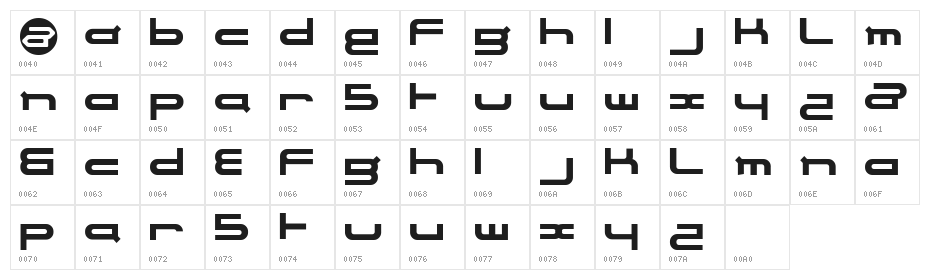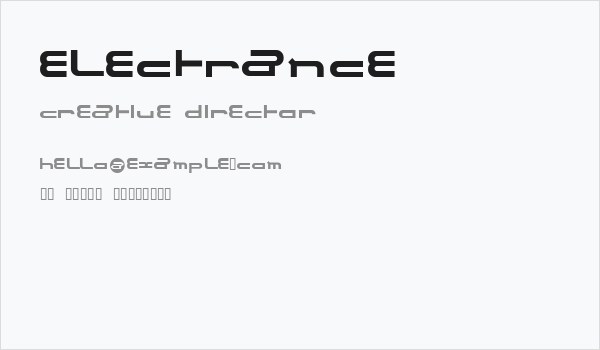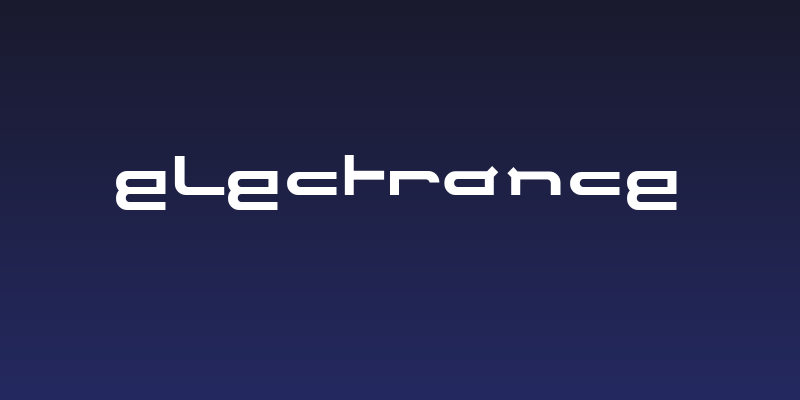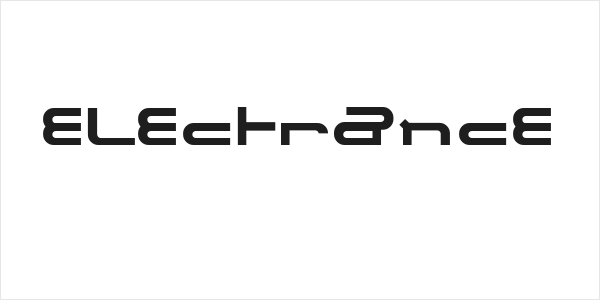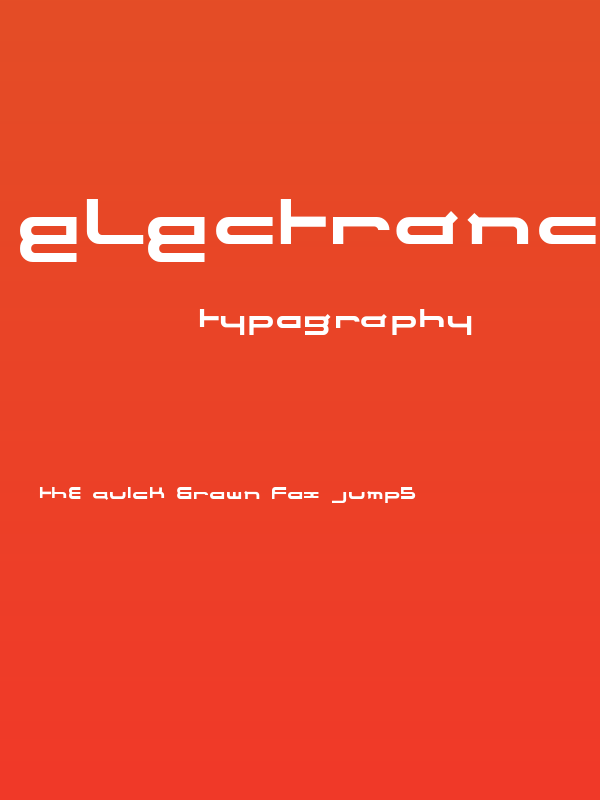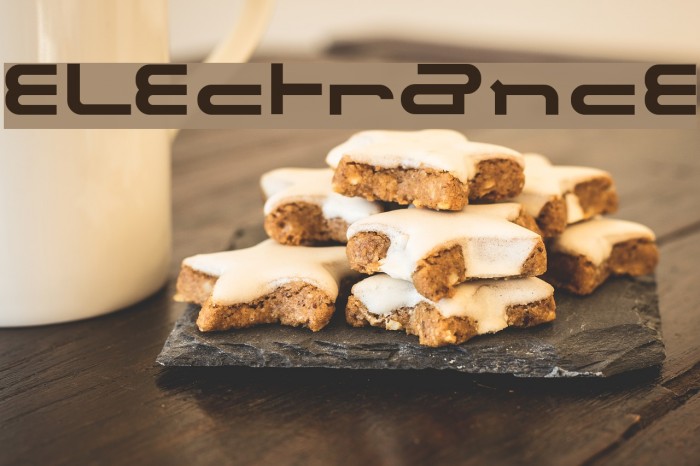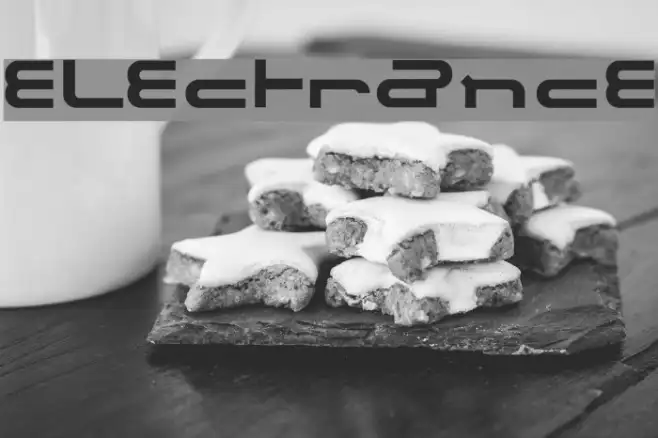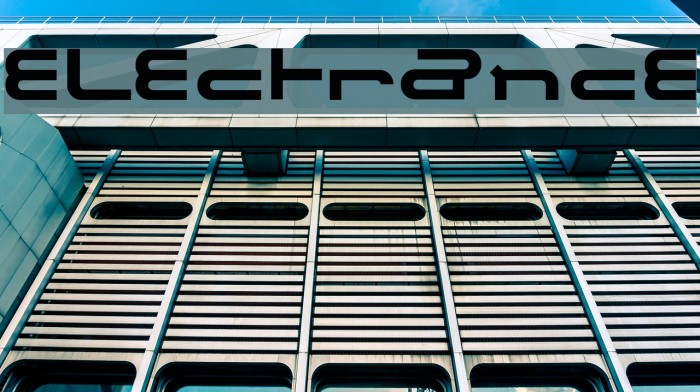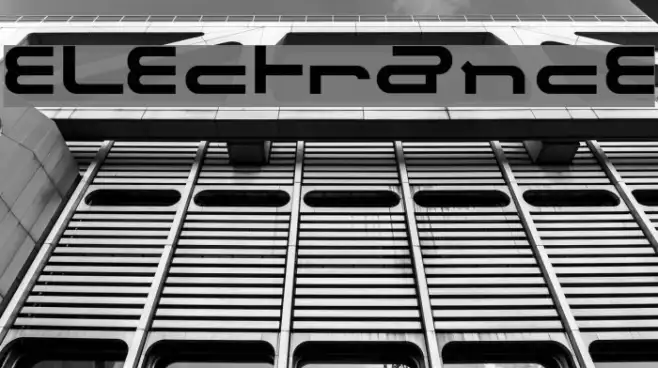
electrance Font
electrance Description
This font features a futuristic and geometric design with a distinct, angular style. The characters are composed of bold, straight lines and sharp angles, giving it a modern and tech-inspired appearance. The uppercase and lowercase letters maintain a consistent height, creating a uniform look across the text. The numbers and special characters follow the same design principles, ensuring a cohesive visual identity. The font's unique style makes it stand out, ideal for projects that require a contemporary and innovative touch.
| Use Case | Logos, Headlines, Posters |
| Proposed Projects | Ideal for technology branding, sci-fi posters, video game titles, and modern digital interfaces. |